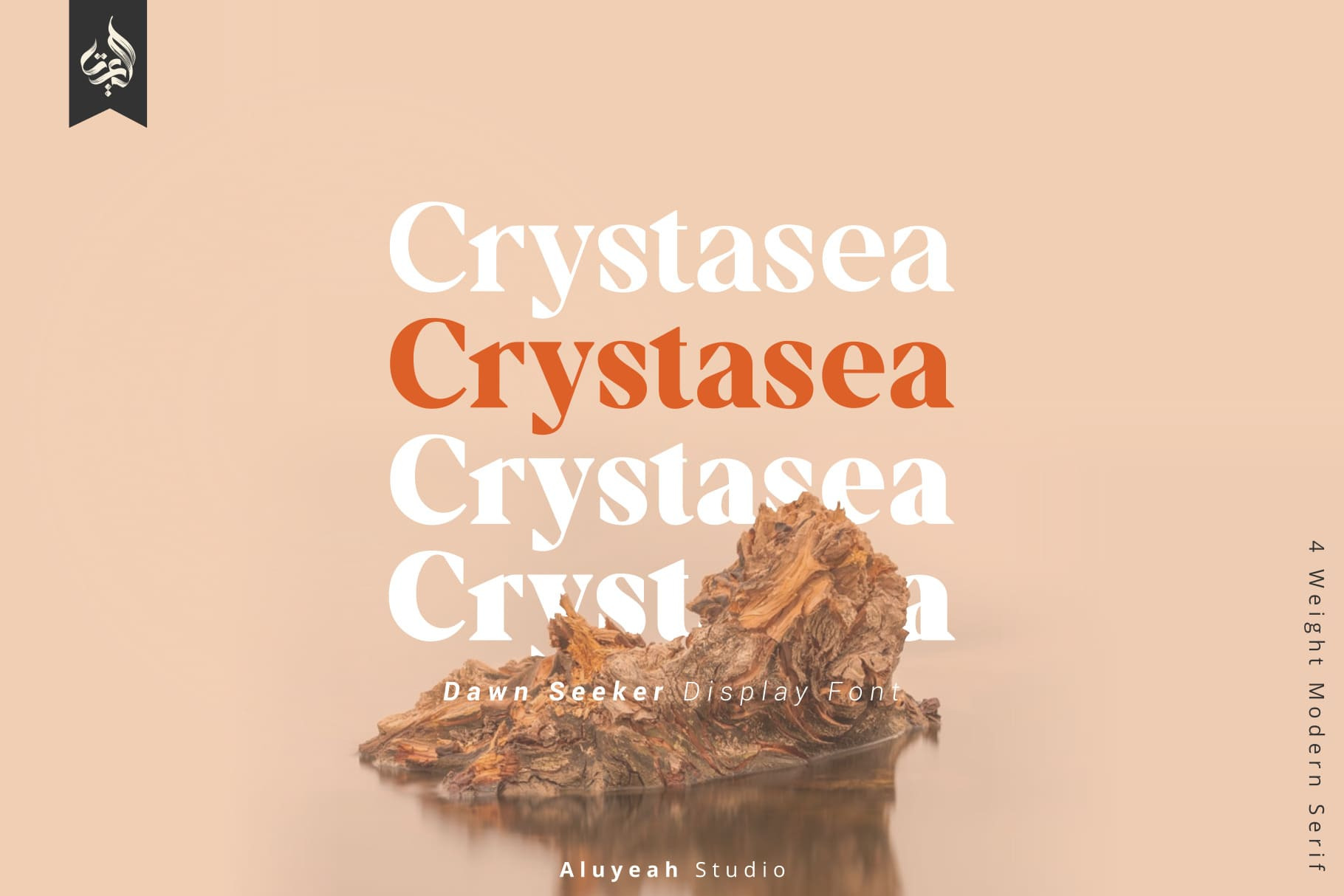
Crystasea, a Dawn Seeker Display Font with Stunning 4 weight and assertive vibe style.
Very suitable for magazine, headline, website, ads, product package and all type of design project you have.